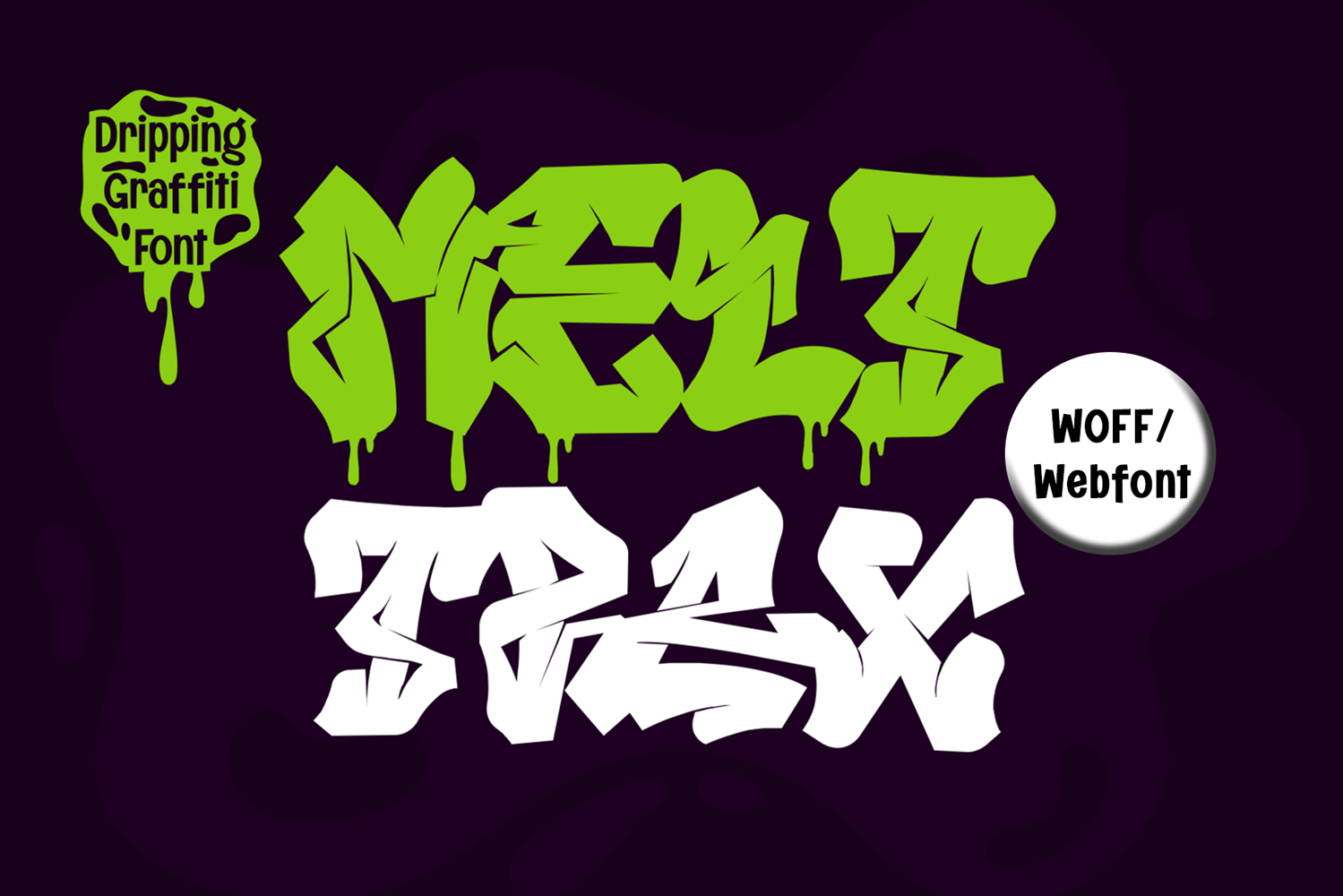
Melttrax |Webfont Dripping Graffiti Font for Websites
Melttrax Webfont is a heavy graffiti-style font designed for digital use. This version includes the web-optimized WOFF file format and comes with two styles: Solid and Dripping — allowing you to create urban-inspired, spooky, or Halloween-ready visuals on your site.
Ideal for game websites, creative portfolios, horror blog titles, or Halloween campaign pages. This webfont ensures cross-browser compatibility and fast rendering.